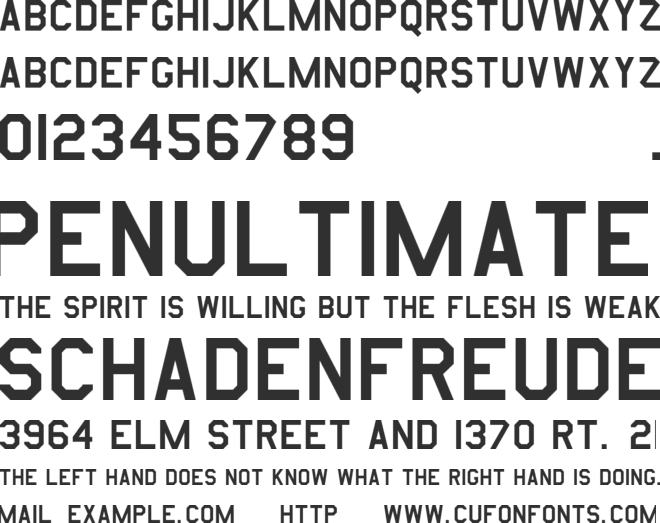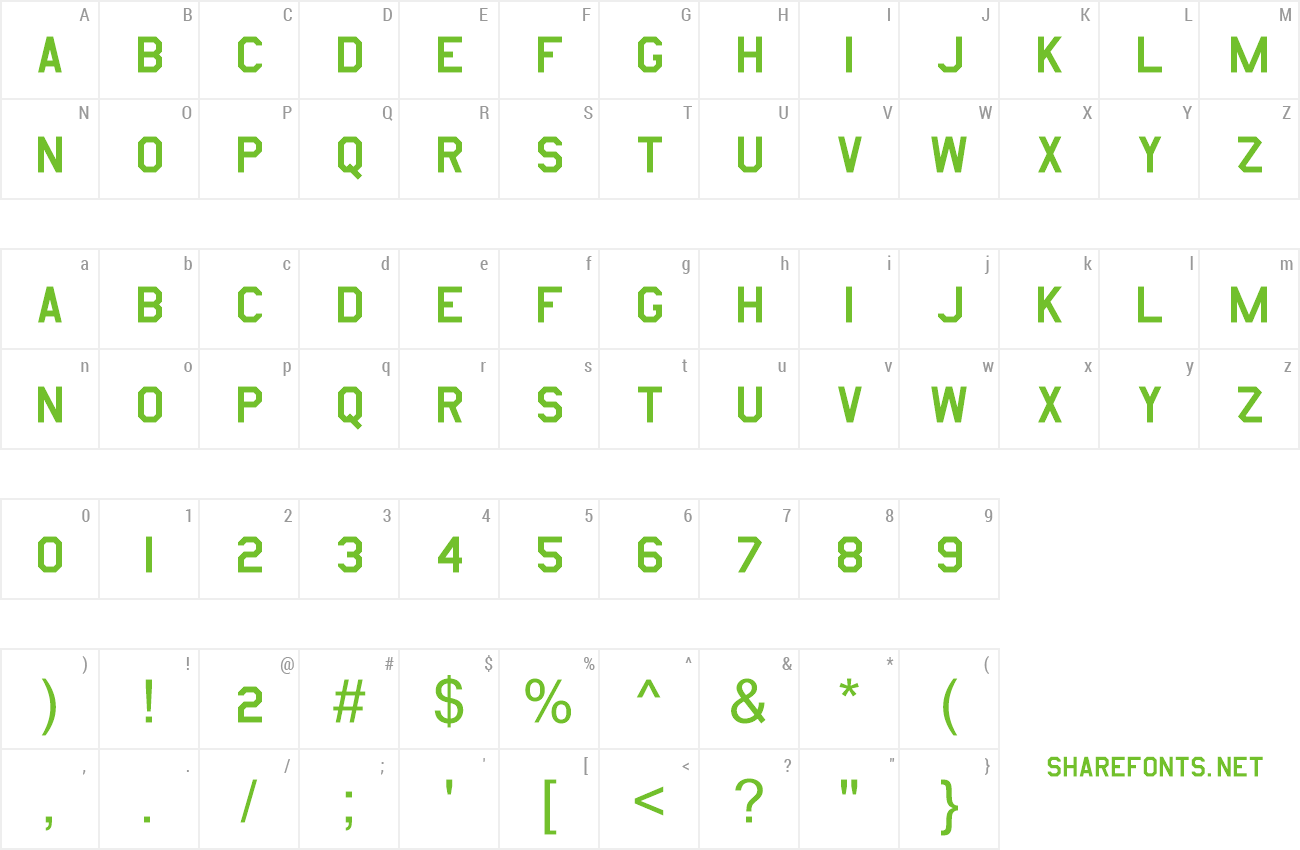
Usaf Amarillo Font
Usaf Amarillo Font - “…follows the current lettering specifications for us air force aircraft. Looking for amarillo usaf font designed by tom c. Web us air force aircraft marking font. Click here to create a custom image with your own text.
“…follows the current lettering specifications for us air force aircraft. Web us air force aircraft marking font. Click here to create a custom image with your own text. Looking for amarillo usaf font designed by tom c.
“…follows the current lettering specifications for us air force aircraft. Click here to create a custom image with your own text. Web us air force aircraft marking font. Looking for amarillo usaf font designed by tom c.
Amarillo Usaf Font Free Fonts
Looking for amarillo usaf font designed by tom c. Web us air force aircraft marking font. Click here to create a custom image with your own text. “…follows the current lettering specifications for us air force aircraft.
Looking for amarillo usaf font designed by tom c. Web us air force aircraft marking font. “…follows the current lettering specifications for us air force aircraft. Click here to create a custom image with your own text.
“…follows the current lettering specifications for us air force aircraft. Web us air force aircraft marking font. Click here to create a custom image with your own text. Looking for amarillo usaf font designed by tom c.
FONTIPEDIA AMARILLO USAF
“…follows the current lettering specifications for us air force aircraft. Web us air force aircraft marking font. Looking for amarillo usaf font designed by tom c. Click here to create a custom image with your own text.
Web us air force aircraft marking font. Click here to create a custom image with your own text. “…follows the current lettering specifications for us air force aircraft. Looking for amarillo usaf font designed by tom c.
Click here to create a custom image with your own text. Looking for amarillo usaf font designed by tom c. Web us air force aircraft marking font. “…follows the current lettering specifications for us air force aircraft.
Click here to create a custom image with your own text. Web us air force aircraft marking font. Looking for amarillo usaf font designed by tom c. “…follows the current lettering specifications for us air force aircraft.
Amarillo USAF Font
Looking for amarillo usaf font designed by tom c. “…follows the current lettering specifications for us air force aircraft. Click here to create a custom image with your own text. Web us air force aircraft marking font.
Click here to create a custom image with your own text. Web us air force aircraft marking font. “…follows the current lettering specifications for us air force aircraft. Looking for amarillo usaf font designed by tom c.
Web Us Air Force Aircraft Marking Font.
“…follows the current lettering specifications for us air force aircraft. Click here to create a custom image with your own text. Looking for amarillo usaf font designed by tom c.